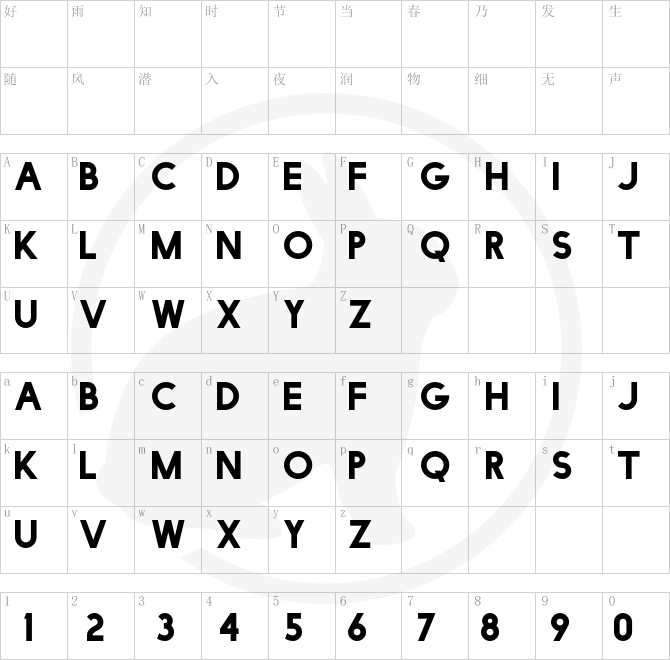
- Font Name:Facile Sans
FacileSans.otf is a very beautiful artistic font, FacileSans.otf is widely used in the design and printing of various books and pictures,FacileSans.otf has a strong visual impact,FacileSans.otf is a commonly used font in newspapers, magazines and books, and is used in posters, e-commerce Poster design, store design, logo design, font design and other fields.FacileSans.